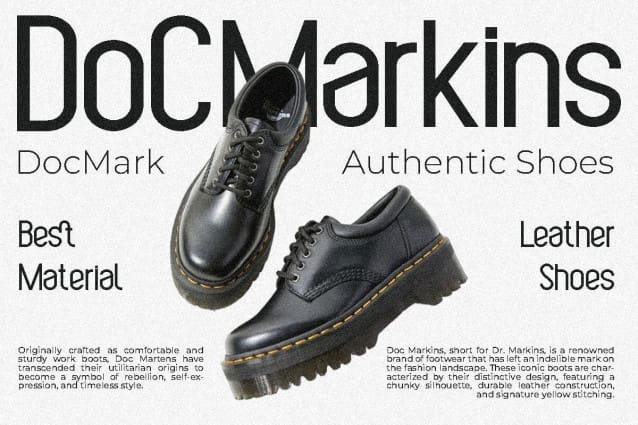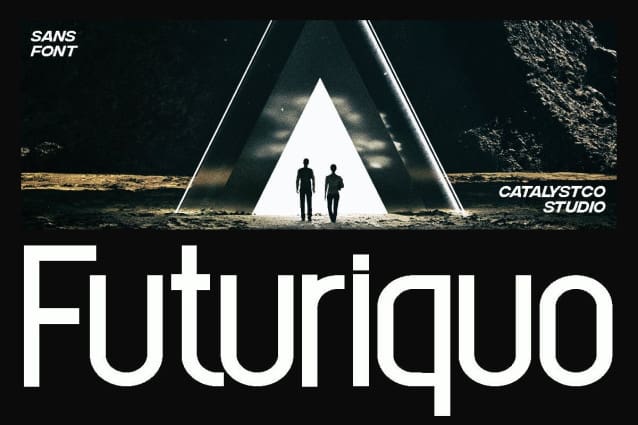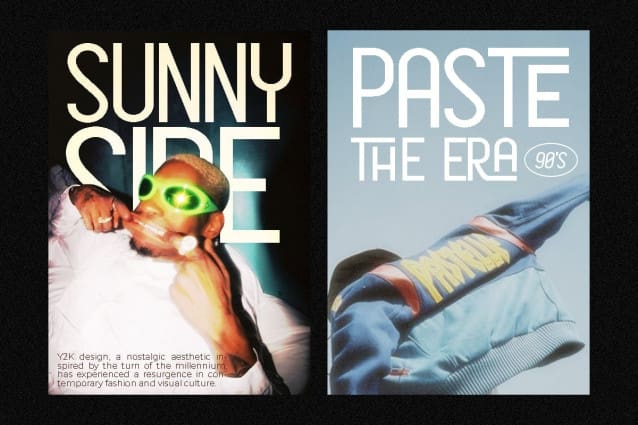
Futurique Font
Futurique Font is excellent for making quote texts, logotypes, magazine headers, t-shirts and many more.  Suitable for any design needs : logo, branding, modern advertising design, logos, poster quote, book / cover Title, editorial design, website / blog, card, t-shirts,…